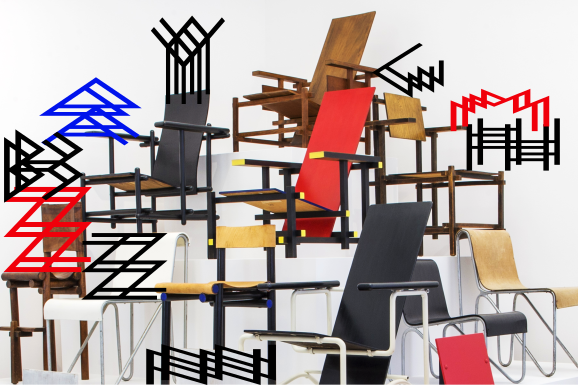
Congratulations! FontStruct Staff have deemed your FontStruction worthy of special mention. “mandatetrinkaAD68” is now a Top Pick.
At first I saw overlapping lines in your unmistakeable jirinvk style; now I see metal structures and furniture. Some glyphs make wonderful decorative additions: as 'frames', as 'dividers' , as 'bullets' and even to replace the # in lists etc. Congratulations on the TP!
Yes, exactly, that sample shows what I meant ... perfect :)
all the desirable items soon affordable from your local toppickea department store! ask for the new upper case home sweet home collection or visit the lower case home accessories section. make your typodining or typoliving room a reality!
LOLOL @ jiry! Very well said,  I'll come shopping as I need a new typosetting for my glyphtable !
Když mé oči vyslaly signál o vstřebávání nového fontu do mozku, on vyslal signál o pohotovostním režimu do mého žaludku... Ta písmenka, ačkoli nejsou typograficky dokonalá, dokážou vyvolat určitě neurčité zvláštní pocity. a tím chci říct, že tvůj font považuji za umění.
tak naslkle...   ....úúúúúúúúúúúú...................
na viděnúúúúúúúúúú........